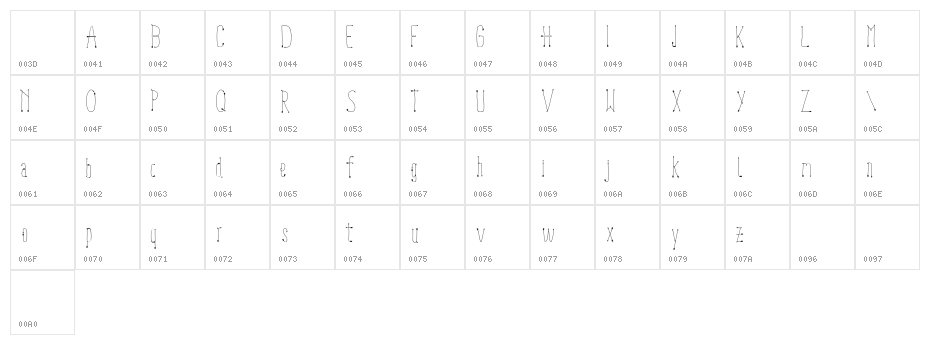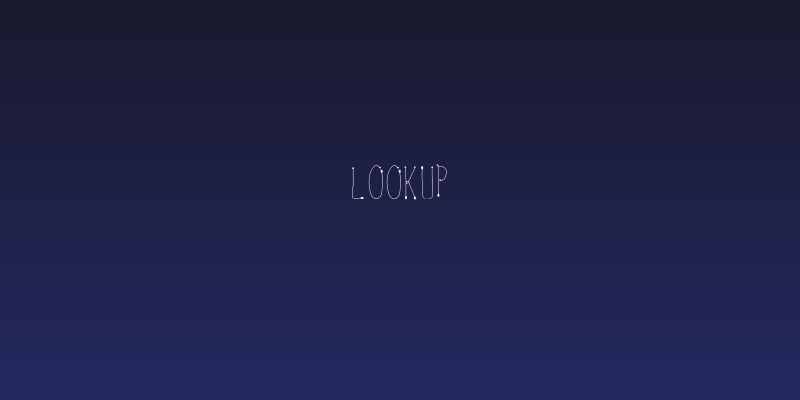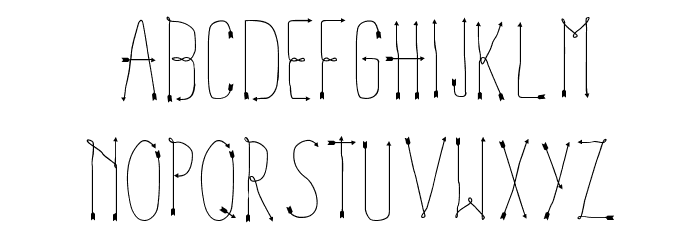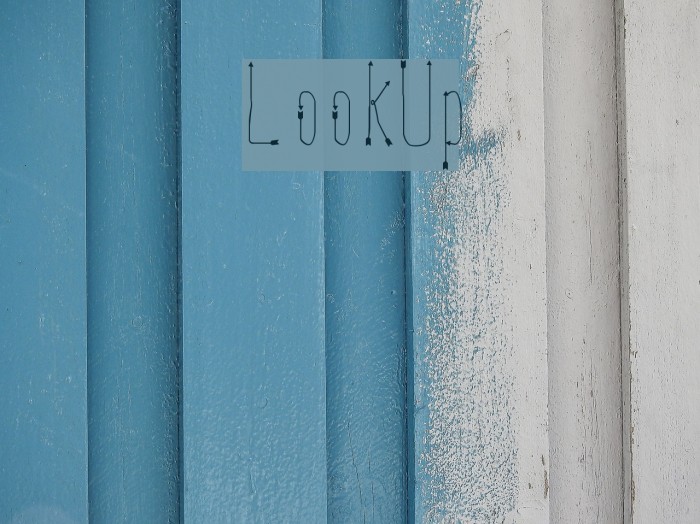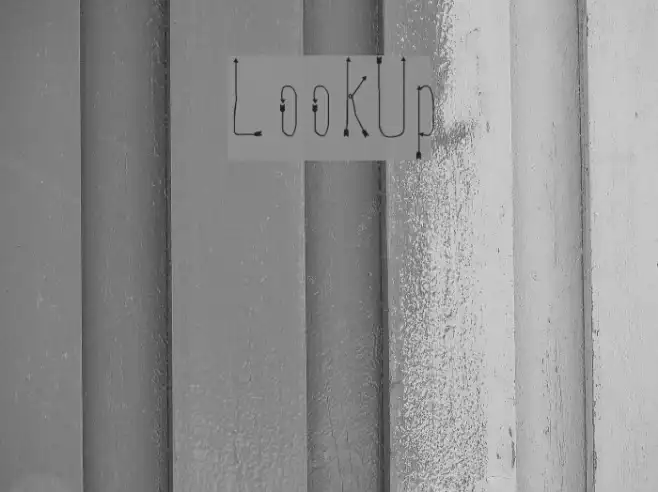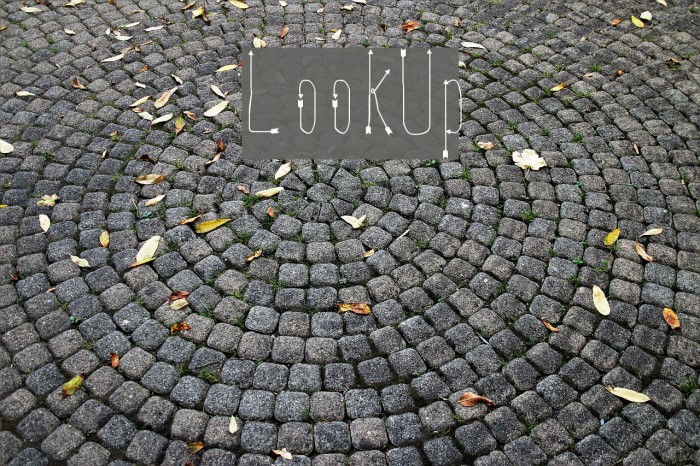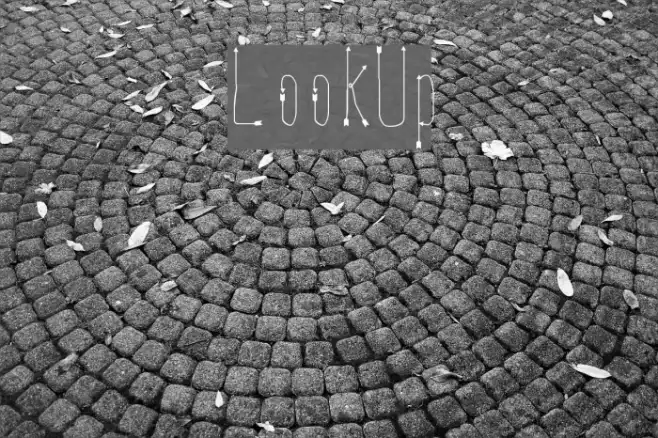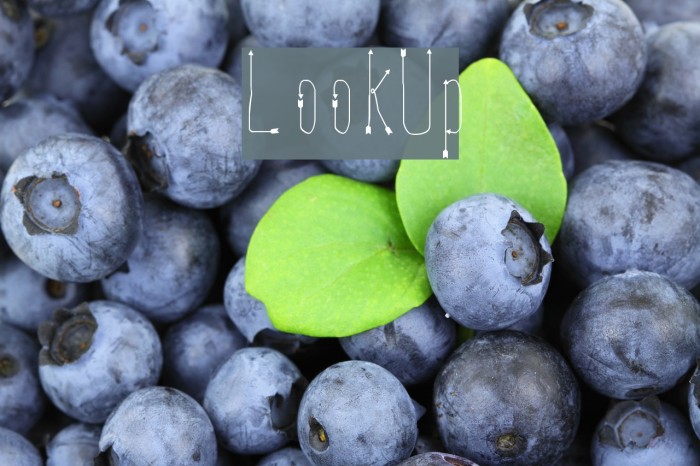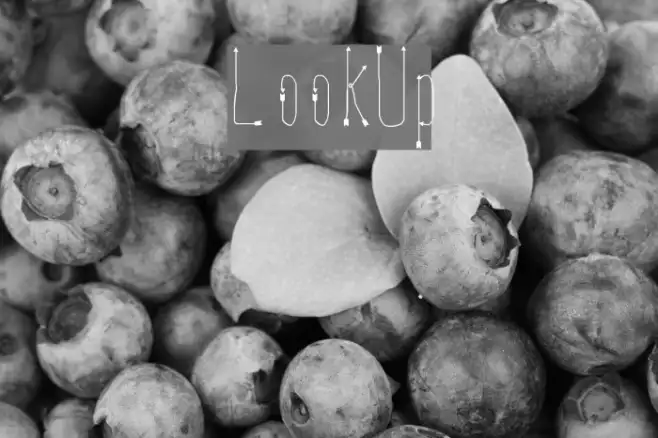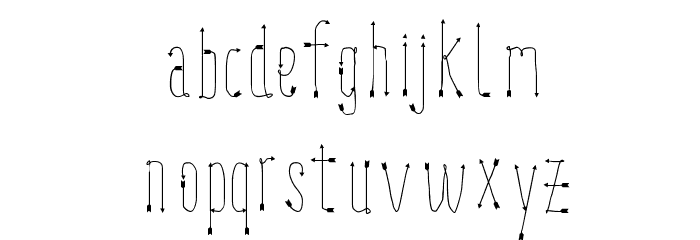
LookUp Font
LookUp Description
This font features a unique and playful design, characterized by its thin, elongated strokes and whimsical dots at the end of each line. The letters are tall and narrow, giving it a distinctive, airy appearance. The uppercase and lowercase letters maintain a consistent style, with slight variations in the curves and angles that add to its charm. The numbers and special characters follow the same design principles, ensuring a cohesive look across all elements. This font is ideal for projects that require a touch of creativity and fun, making it perfect for children's books, playful branding, or artistic posters.
| Use Case | Headlines, Logos, Artistic projects |
| Proposed Projects | Children's books, playful branding, artistic posters, creative invitations. |